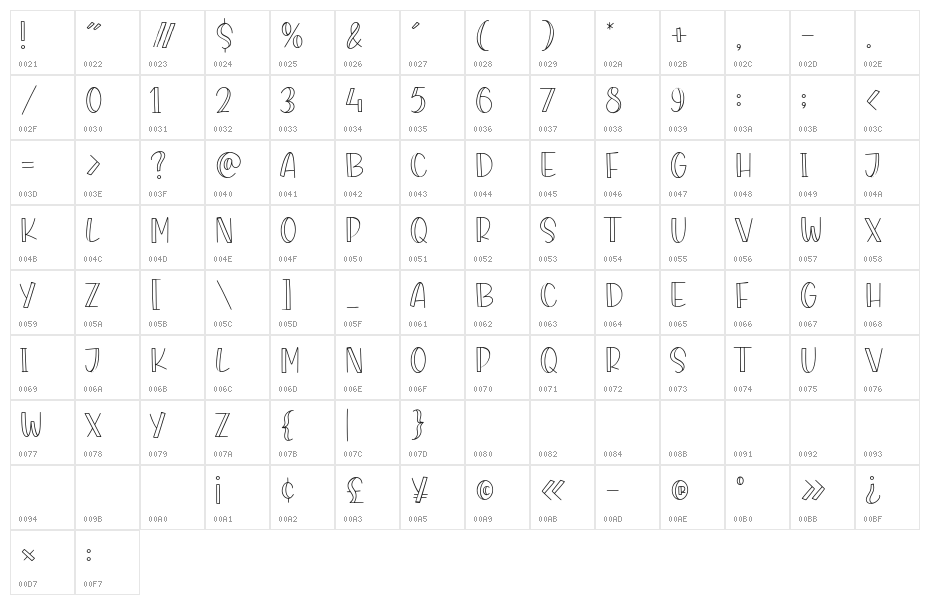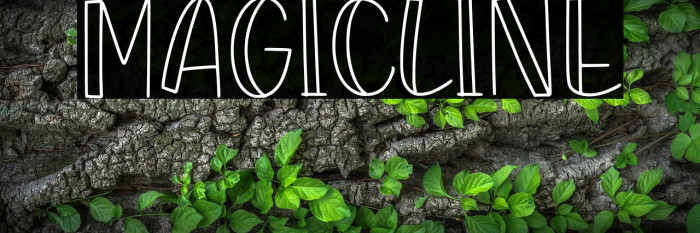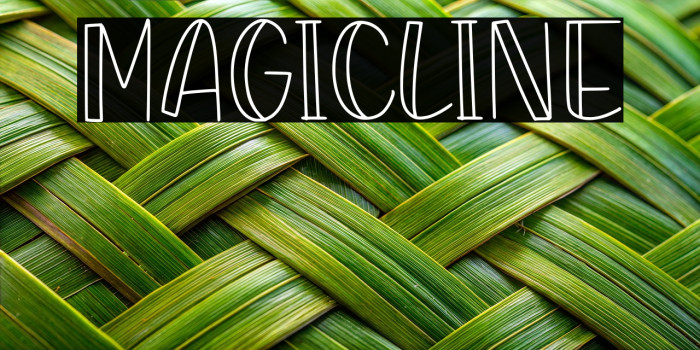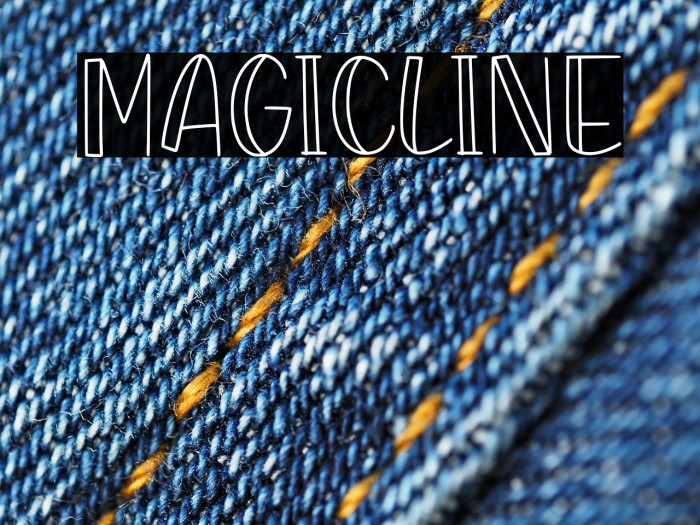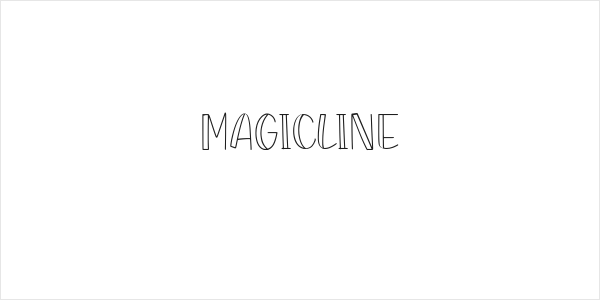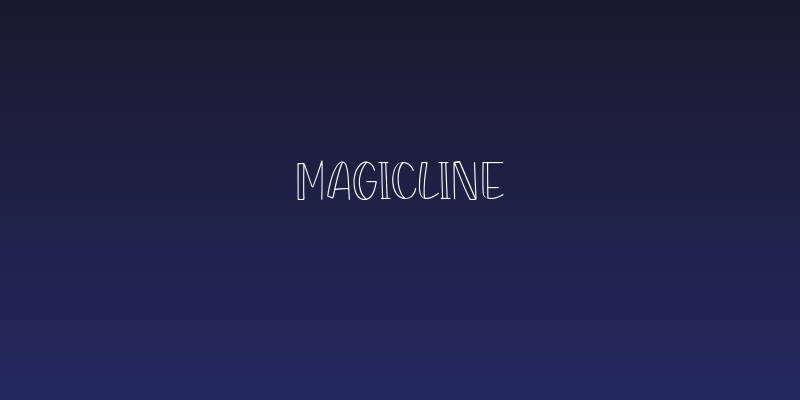
MAGICLINE Font
MAGICLINE Description
This font features a playful and whimsical design, characterized by its tall, narrow letters with a slight slant. The strokes are consistent in width, giving it a clean and modern look. The uppercase and lowercase letters maintain a uniform style, with rounded edges and a slight curl at the ends, adding a touch of elegance. The numerals are distinct and easy to read, complementing the overall aesthetic. Special characters are creatively designed, maintaining the font's unique personality. This font is versatile, suitable for various creative projects.
| Proposed Projects | Ideal for children's books, greeting cards, playful branding, and creative posters. |